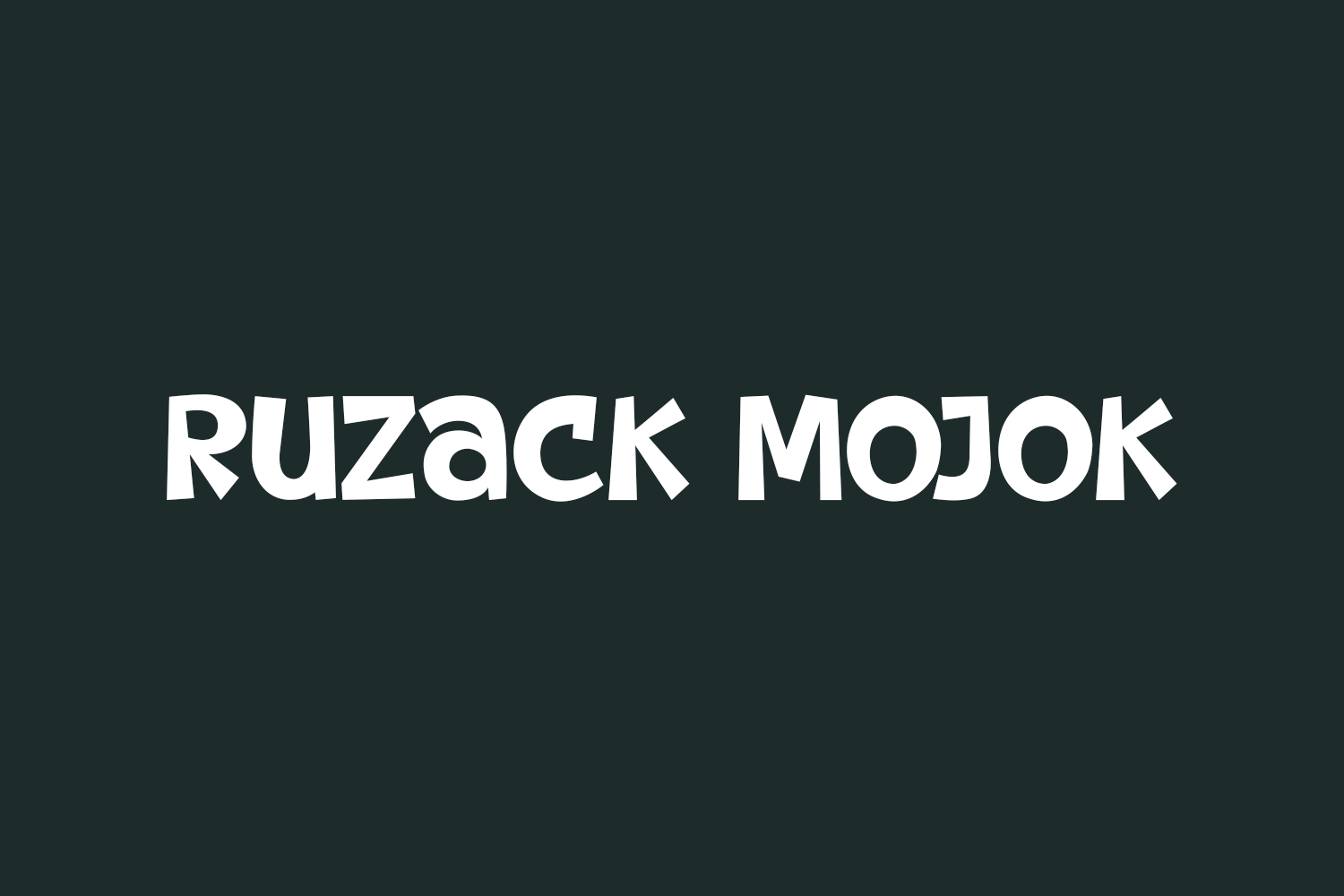
Introducing Ruzack Mojok Free Font, a distinctive blend of modern and timeless display font. This font style is ideal for creating sophisticated and luxurious logos, captivating book or movie titles, fashion brand designs, magazine layouts, clothing labels, lettering, quotes, and a plethora of other design applications. Ruzack Mojok Free Font is free for personal use only. Please purchase the full version for commercial use.